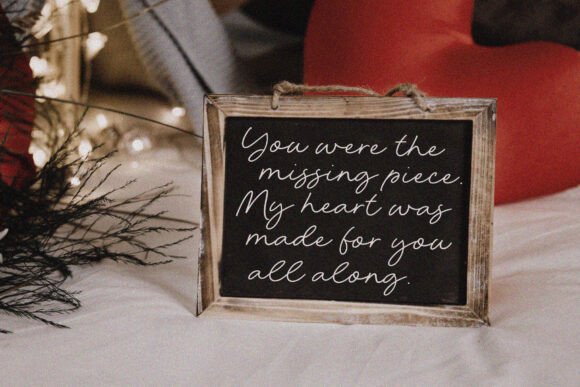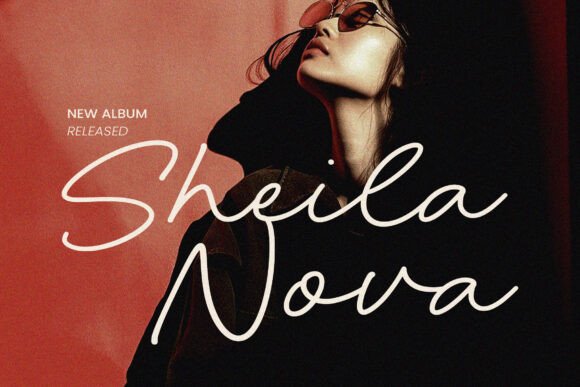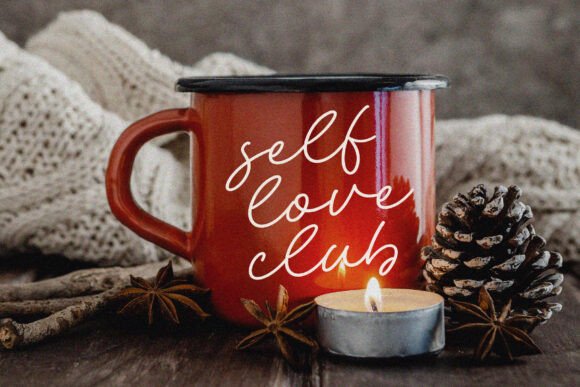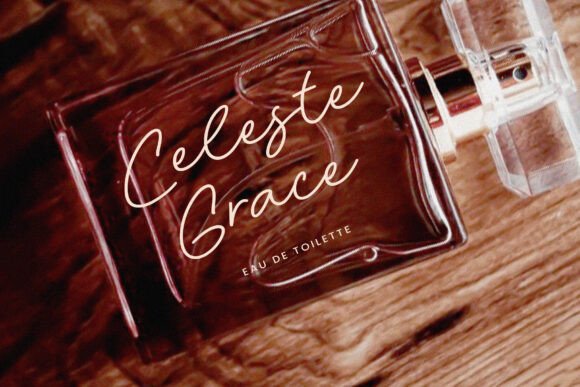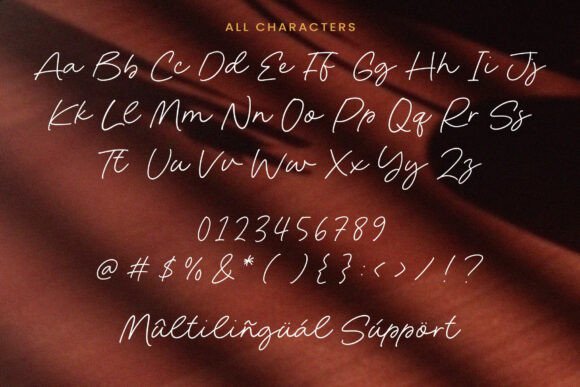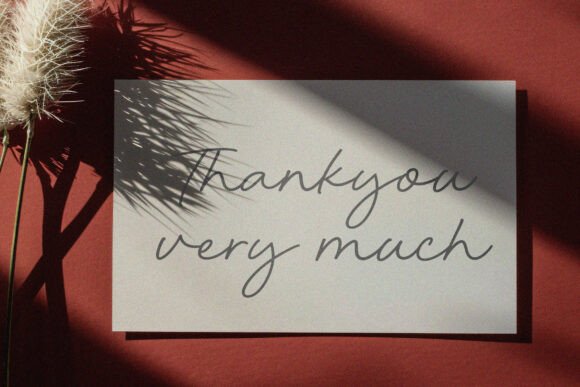
The Perfect Brushstroke: Discovering the Benjamin Kingdom Font
There’s nothing quite like the rush of creativity that comes from bringing a new design to life. You’re brainstorming ideas, sketching out rough concepts, and pouring your heart into every detail. And then, just when you think you’ve found the perfect look, you stumble upon a font that elevates your entire design to the next level.
Enter the Benjamin Kingdom Font, a stylish monoline handwritten font that brings a touch of elegance and sophistication to any project. With its smooth, flowing strokes and balanced letterforms, this font is perfect for logos, branding, invitations, and creative designs that require a little extra flair. Whether you’re a seasoned designer or just starting out, the Benjamin Kingdom Font is a valuable addition to your toolkit – and we’re excited to share its story with you.
Key Features of Benjamin Kingdom Font
- Font Size: The font comes in multiple sizes, ranging from 8 to 72 points, making it suitable for various design applications.
- Resolution: The font is designed to be scalable and legible at high resolutions, making it ideal for both print and digital applications.
- Unique Characteristics: The font features a classic, elegant design with subtle flair and sophistication, making it perfect for formal and professional settings.
- Script Support: The font includes a wide range of script and swash characters, allowing for added flair and creativity in typography.
- Language Support: The font supports a wide range of languages, including Latin, Cyrillic, and Greek alphabets, making it a versatile choice for global design projects.
Designer Review: Benjamin Kingdom Font
Benjamin Kingdom is a beautifully crafted script font that adds a touch of elegance to any design. ✨ Its flowing lines and organic feel make it perfect for titles, quotes, and other text elements that require a sense of sophistication.
- High-quality texture – The font features a smooth, high-quality texture that gives it a premium look and feel.
- Wide language support – Benjamin Kingdom supports a wide range of languages, making it a versatile option for designers working on global projects.
- Limited font weights – The font only comes in a single weight, which may limit its versatility in certain design contexts.
- No italics or bold variants – While the font is beautiful on its own, it would be nice to have italic or bold variants to add more depth and emphasis to text.
Overall, Benjamin Kingdom is a solid choice for designers looking to add a touch of elegance to their projects. While it has its limitations, its high-quality texture and wide language support make it a worthwhile addition to any font collection.
The Benjamin Kingdom Font is ideal for creating elegant and sophisticated designs. Use it for:
- Typography-based art and designs
Remember to pair the Benjamin Kingdom Font with high-quality images and graphics to create a visually stunning design.
Alternatives to “Benjamin Kingdom Font” for Designers
Playfair Display is a luxurious and elegant serif font, perfect for creating high-end designs. It features intricate details and ornate flourishes, making it ideal for use in invitations, wedding stationery, and other special occasions. Compared to Benjamin Kingdom Font, Playfair Display has a more refined and sophisticated feel, making it suitable for high-end branding and luxury packaging.
Great Vibes is a modern and stylish script font, ideal for creating a relaxed and casual atmosphere. It features a unique blend of elegance and playfulness, making it perfect for use in restaurant menus, event branding, and other designs that require a fun and lively tone. Compared to Benjamin Kingdom Font, Great Vibes has a more laid-back and approachable feel, making it suitable for designs that require a friendly and approachable tone.
Pacifico is a beautiful and elegant script font, inspired by the Pacific coast of Mexico. It features a unique blend of sophistication and playfulness, making it perfect for use in designs that require a sense of adventure and relaxation. Compared to Benjamin Kingdom Font, Pacifico has a more relaxed and casual feel, making it suitable for designs that require a laid-back and approachable tone.